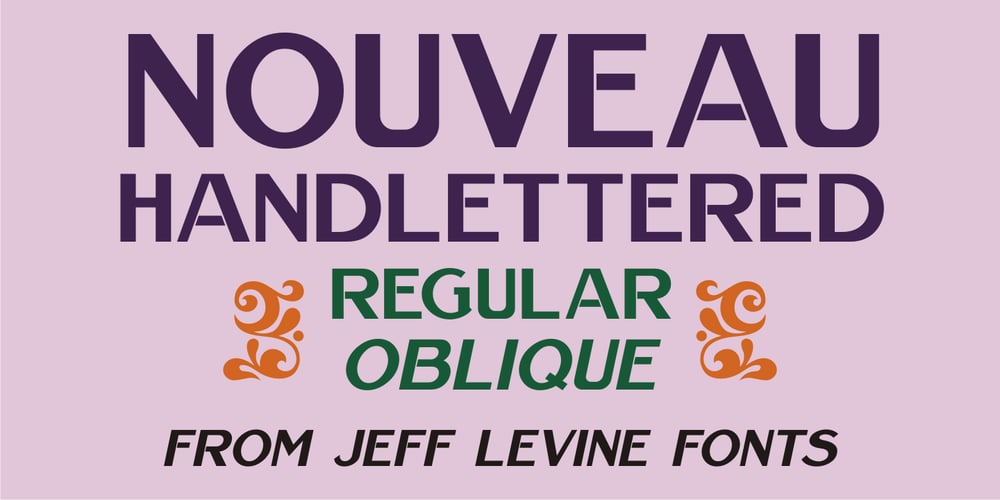
Nouveau Handlettered JNL Font Family was designed by Jeff Levine and published by Jeff Levine. Nouveau Handlettered JNL contains 2 styles and family package options. The roots of Nouveau Handlettered JNL go back to the sheet music cover for the 1917 song “(Someday) Somebody’s Gonna Get You”. This simple style of sans serif titling has the casual, imperfect charm of the pen and ink lettering so prevalent in the decades before metal type and other technical advancements made the craft almost obsolete. The typeface is available in both regular and oblique versions.